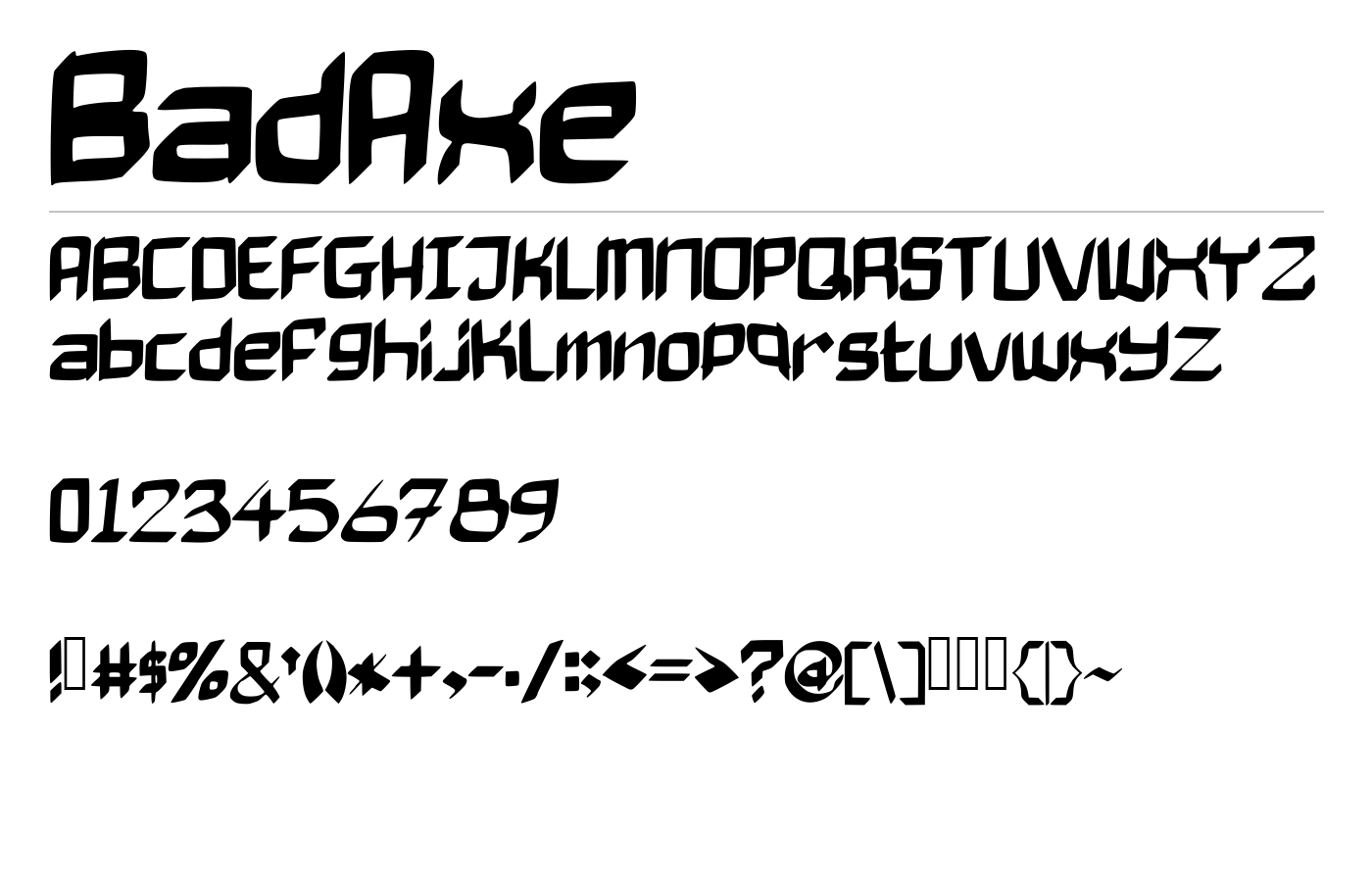
BadAxe is a bold, angular sans serif font with a distinctive, rough-hewn look that feels dynamic and slightly aggressive. Its sharp, uneven strokes and irregular shapes give it a strong, edgy personality perfect for adventurous or rugged branding, posters, and headlines. This font’s unique style works well where a bold statement is needed, especially in creative, urban, or extreme-sports contexts.
BadAxe Font
About BadAxe Font